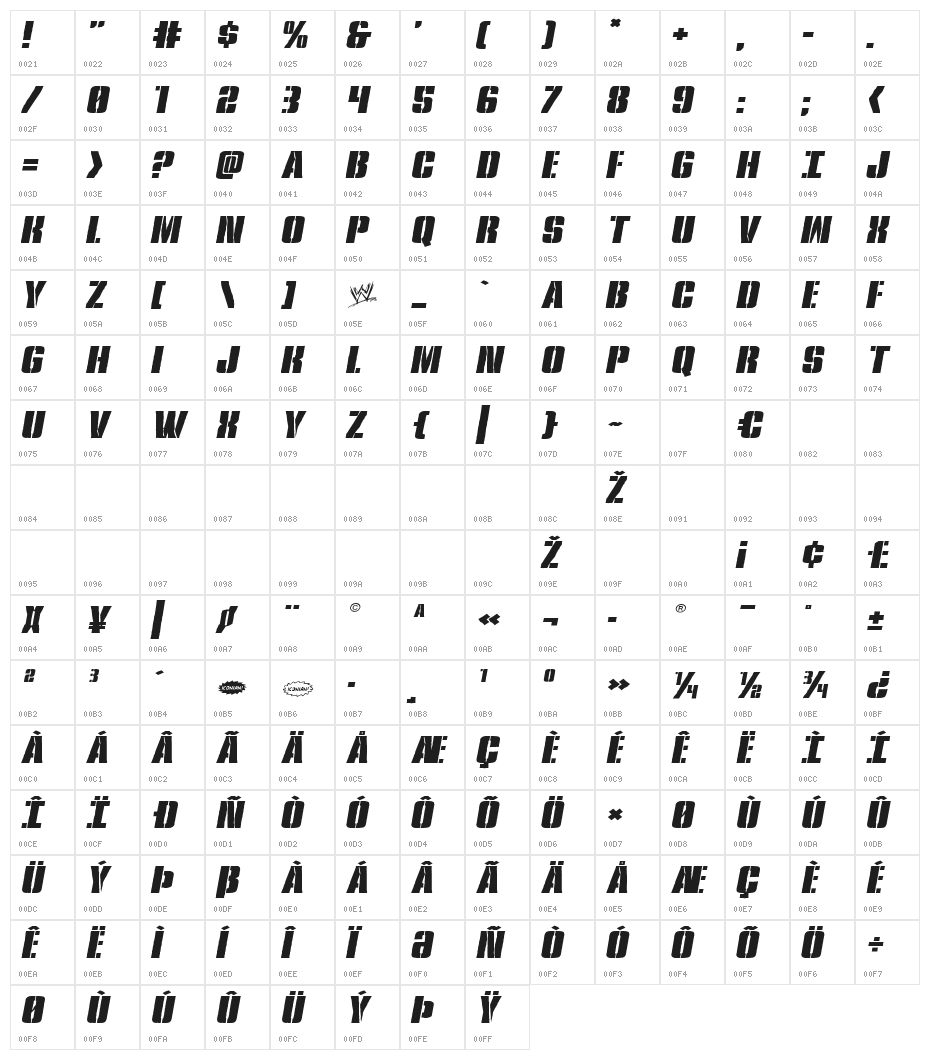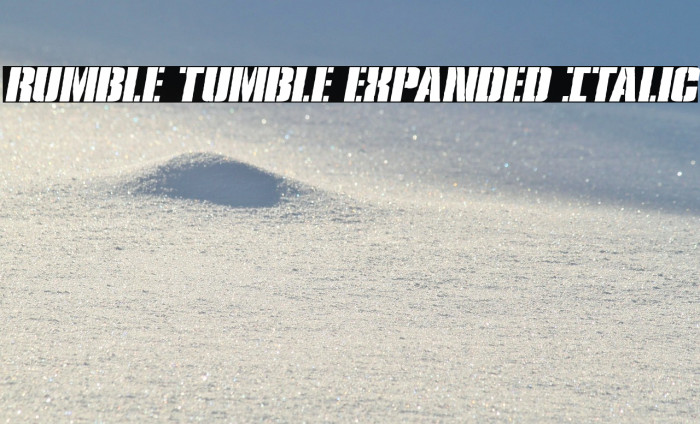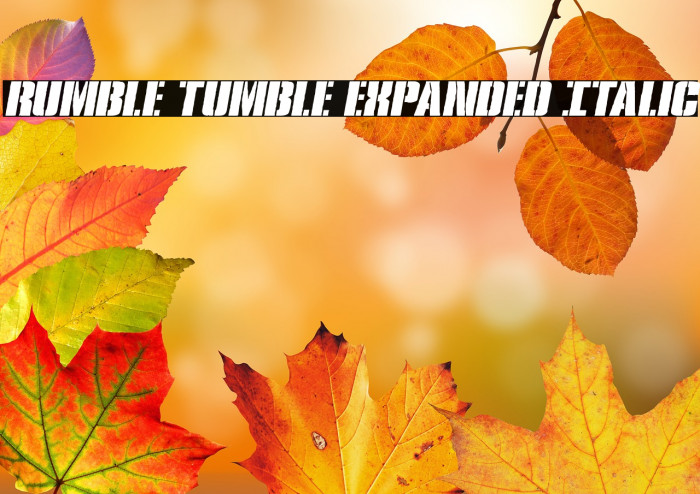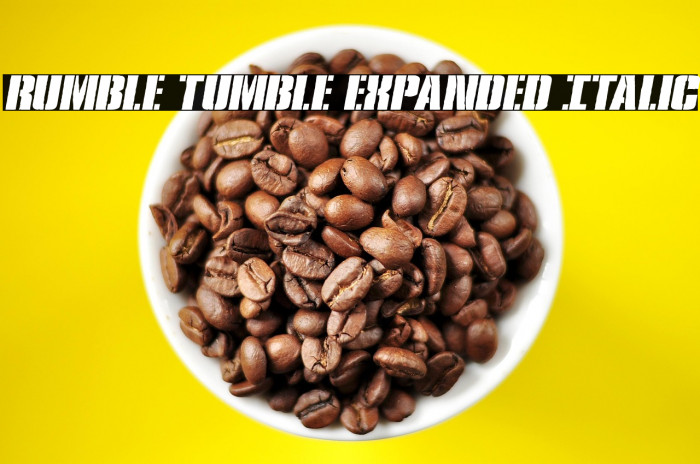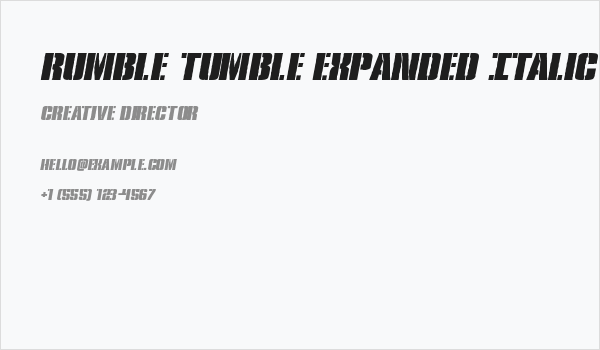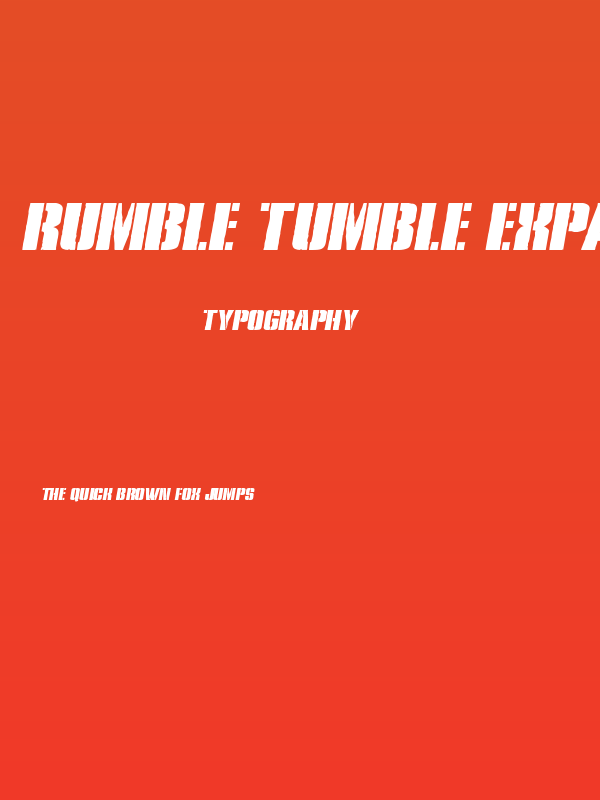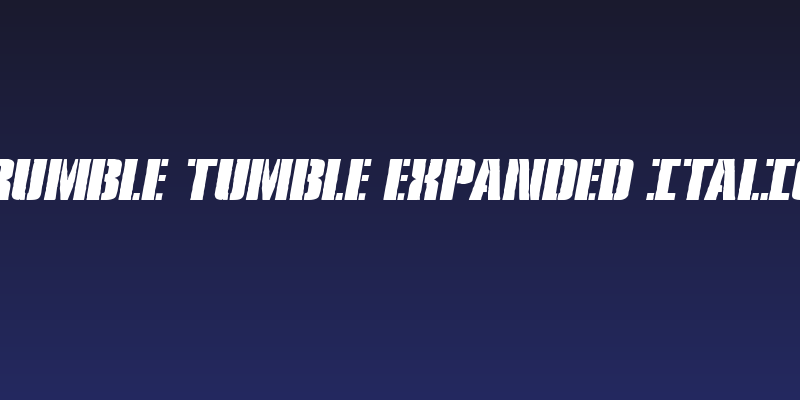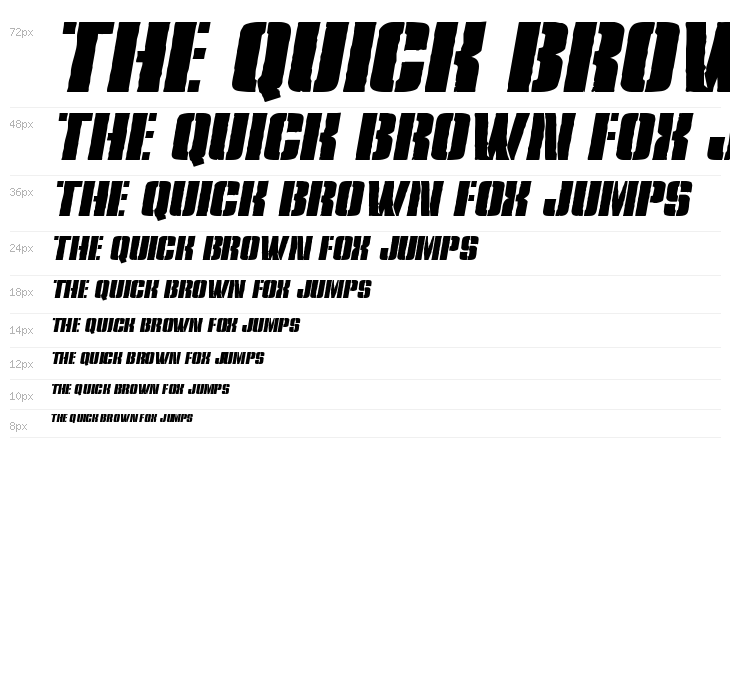
Rumble Tumble Expanded Italic Font
Rumble Tumble Expanded Italic Description
This font features a bold and robust design with an expanded width and italicized slant, giving it a dynamic and energetic appearance. The characters are heavily stylized with a stencil-like effect, creating a sense of movement and urgency. The uppercase letters are particularly striking, with sharp angles and a strong presence. The numbers and special characters maintain the same boldness, ensuring consistency across all elements. This font is ideal for making a statement, with its high impact and distinctive style.
| Proposed Projects | Perfect for posters, headlines, branding, and any project needing a bold, impactful look. |